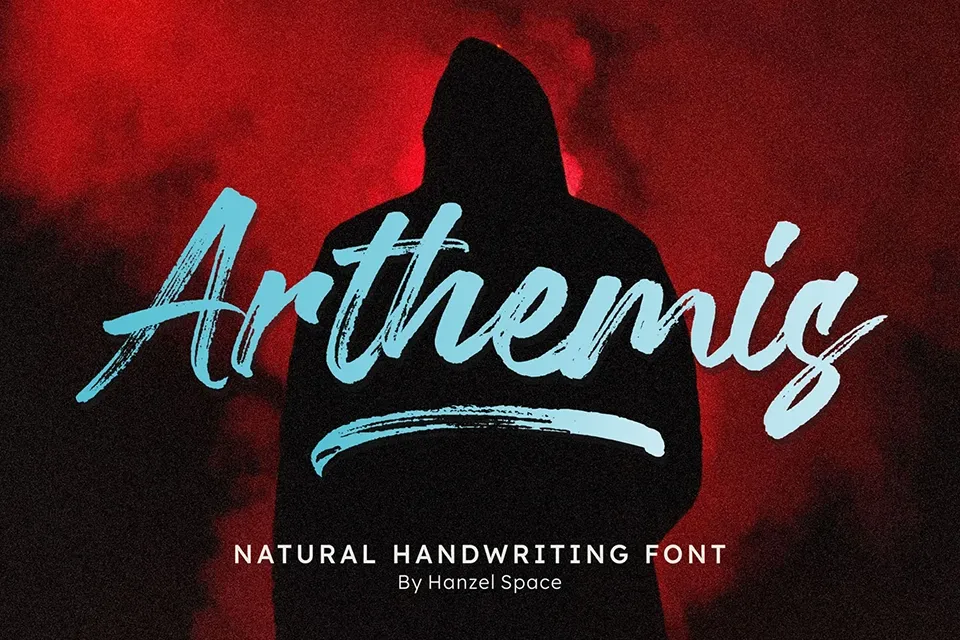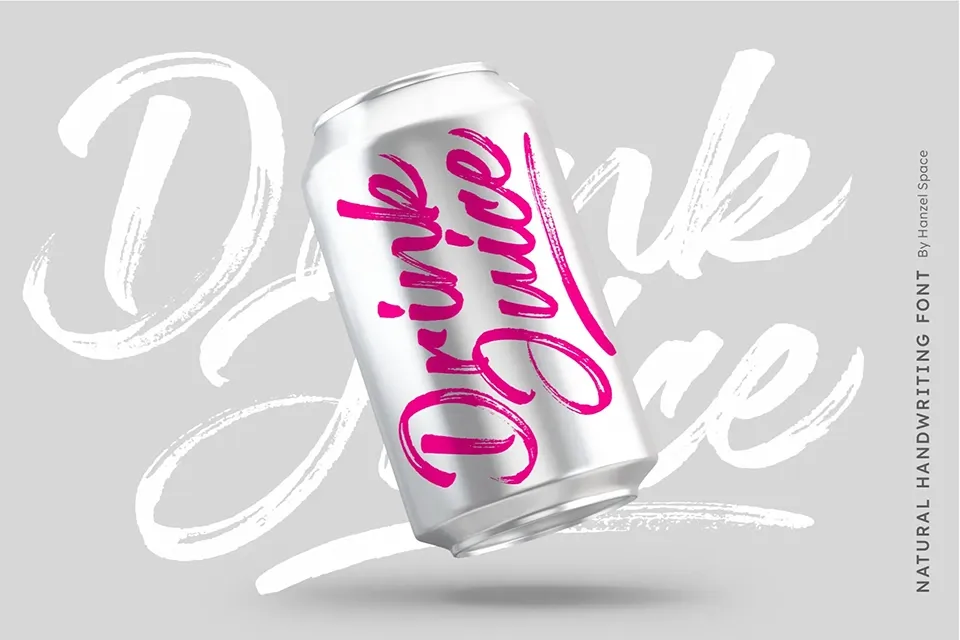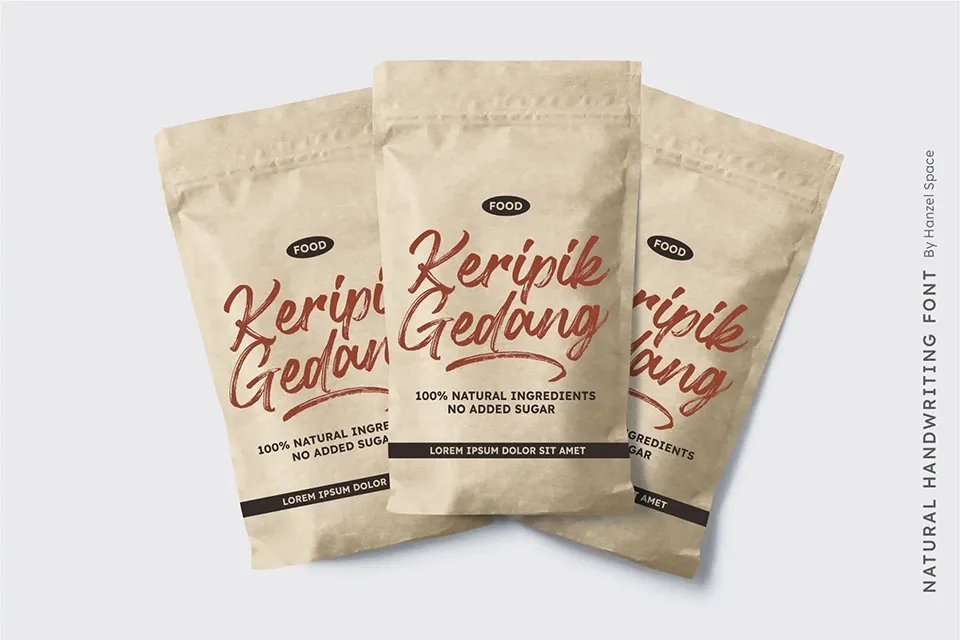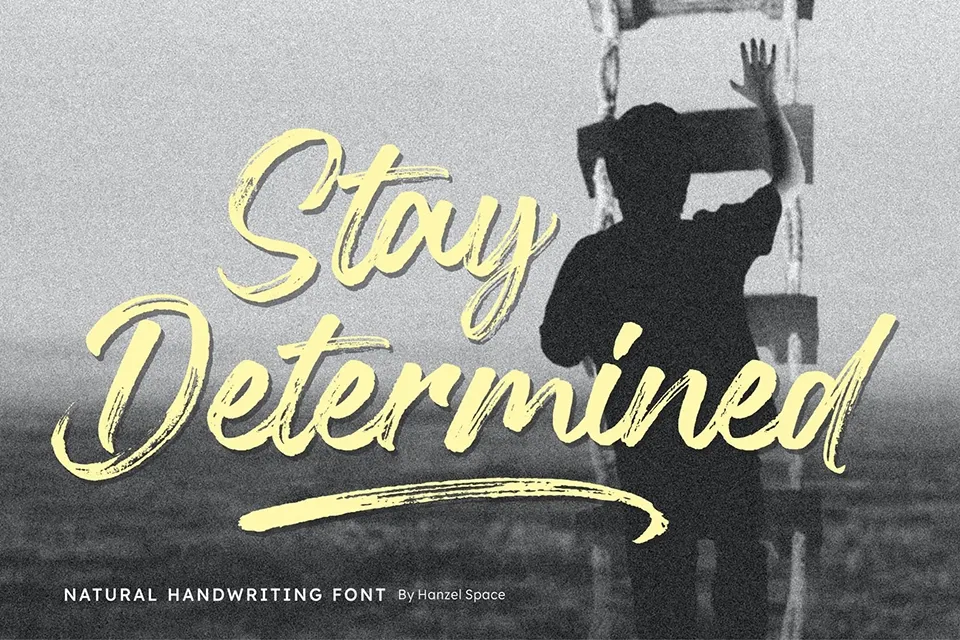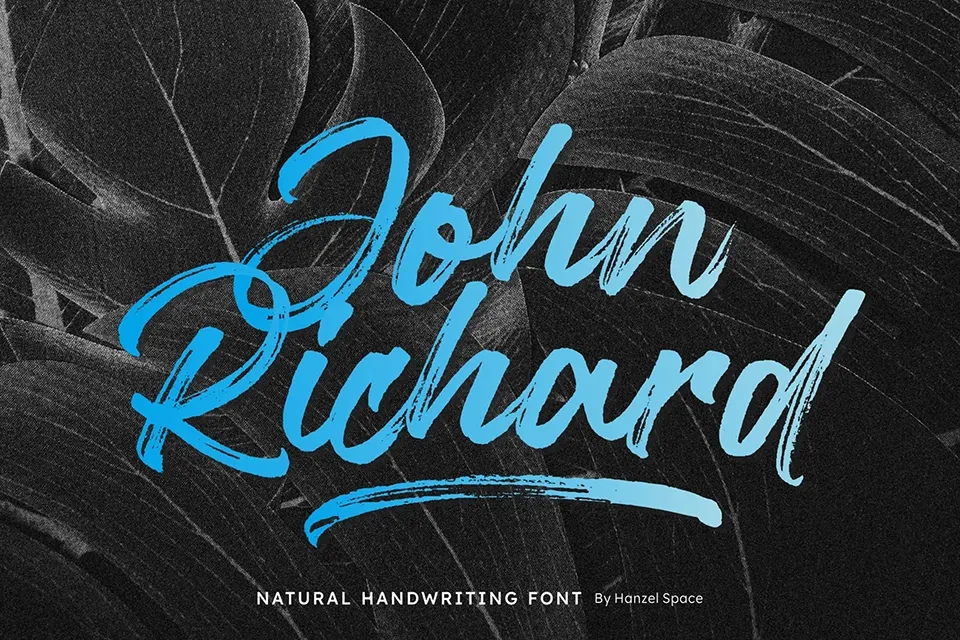
Arthemis Font
Arthemis Font is a modern brush script font inspired by natural handwriting with an aesthetic touch. Its organic and artistic strokes make it versatile for both web and print, suitable for stationery, packaging, apparel, wedding invitations, prints, quotes, social media graphics, planners, greeting cards, logos, branding, and more. The font features a full set of uppercase characters, numerals, symbols, two lowercase letter sets, 28 ligatures, and multilingual support, making it ideal for a wide range of creative projects.